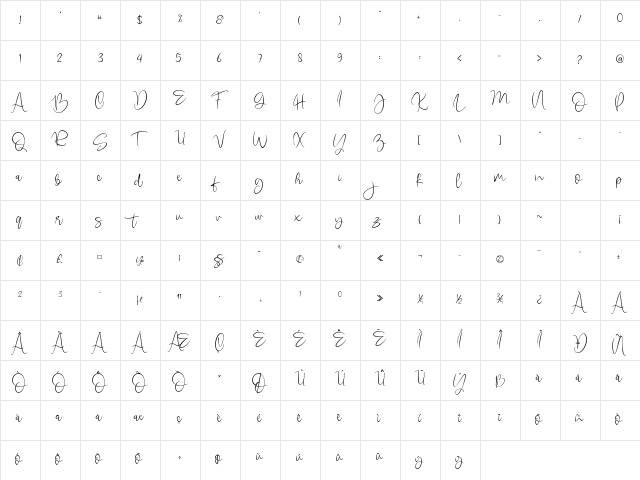
queenbee Regular
| Designer | Stefani Letter 2020 |
Design Context for queenbee Typeface
queenbee is a composed and adaptable typeface that performs quietly and consistently across a wide range of design contexts.